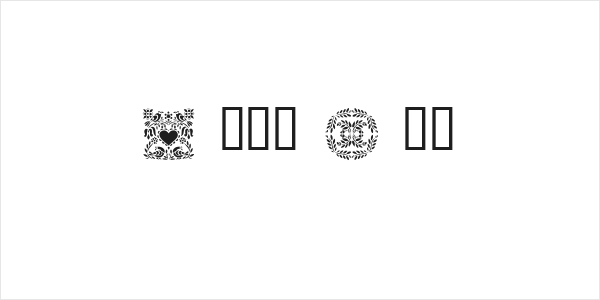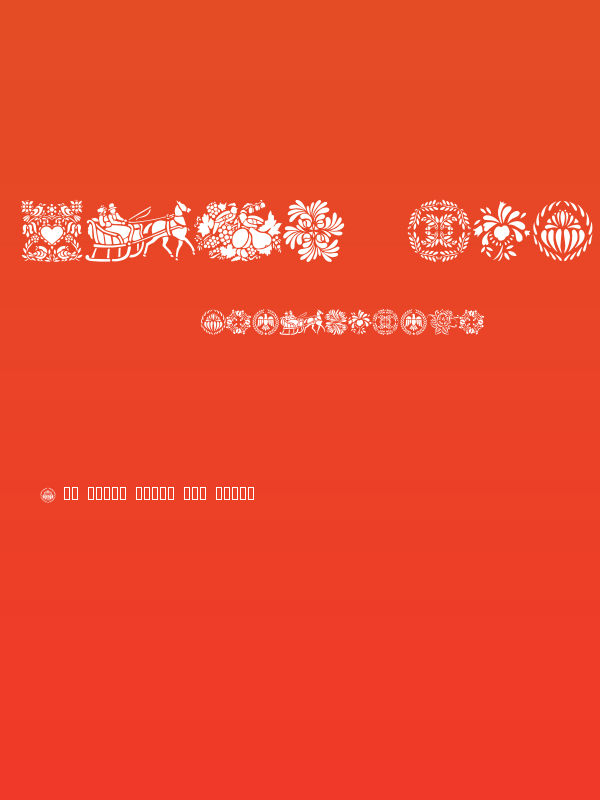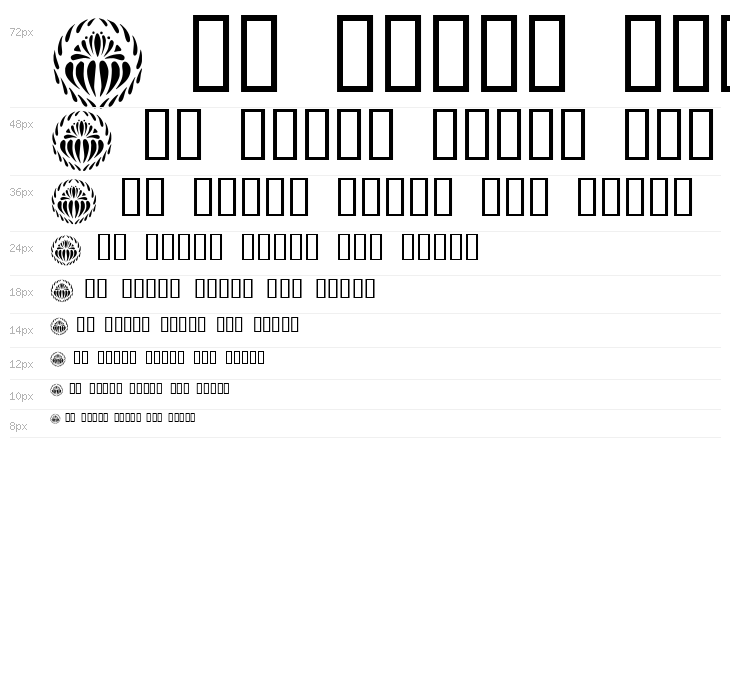
Folk Art Font
Folk Art Description
This collection features intricate folk-art designs that are rich in cultural symbolism and artistic expression. The designs include a variety of floral and geometric patterns, each meticulously crafted to reflect traditional folk aesthetics. The motifs are highly decorative, showcasing a blend of symmetry and complexity that is characteristic of folk art. These elements are perfect for adding a touch of cultural heritage and artistic flair to any project. The designs are versatile and can be used in a wide range of applications, from textiles and wallpapers to digital media and print. The bold and detailed patterns make them ideal for creating eye-catching visuals that stand out.
| Use Case | Logos, Decorative elements, Art projects |
| Proposed Projects | Ideal for textiles, wallpapers, digital media, print, and any project requiring cultural and artistic flair. |